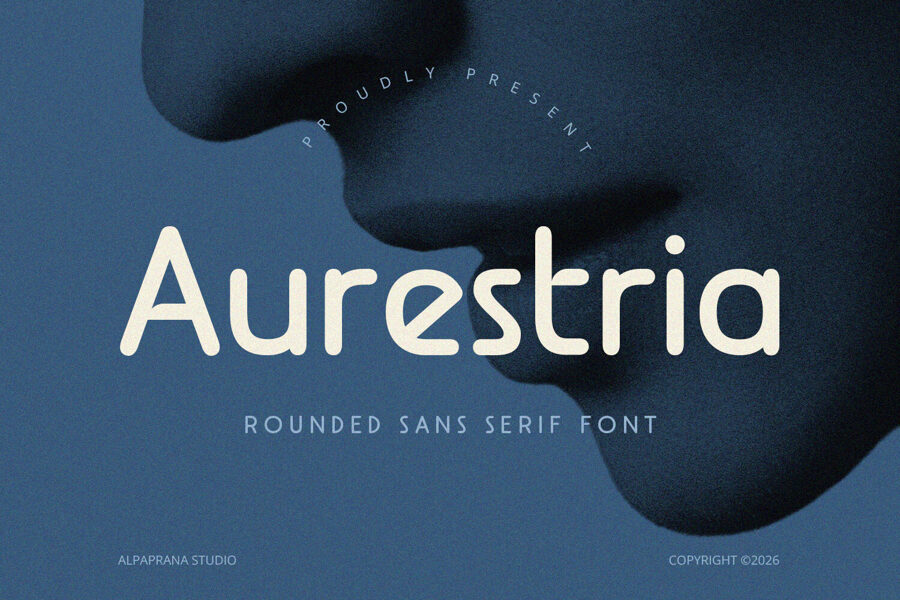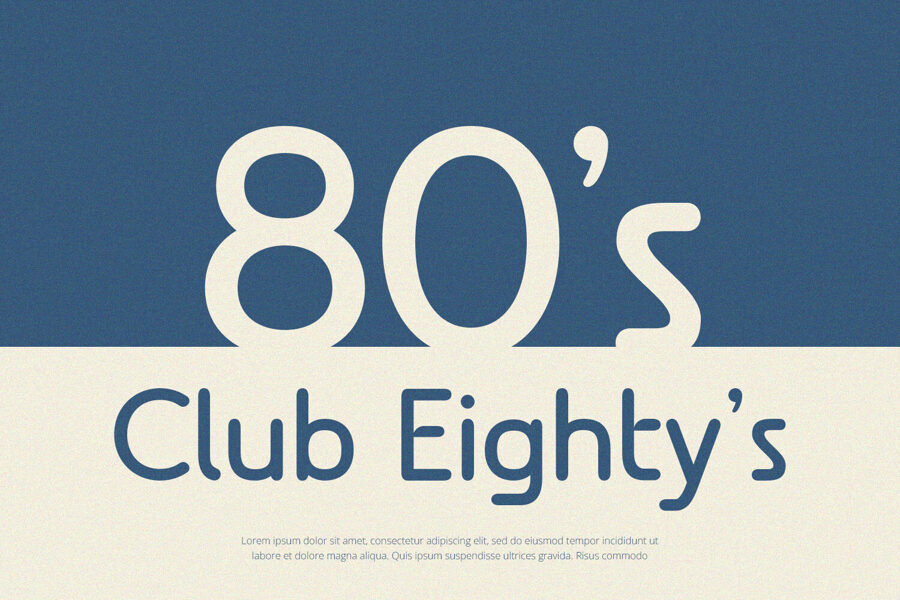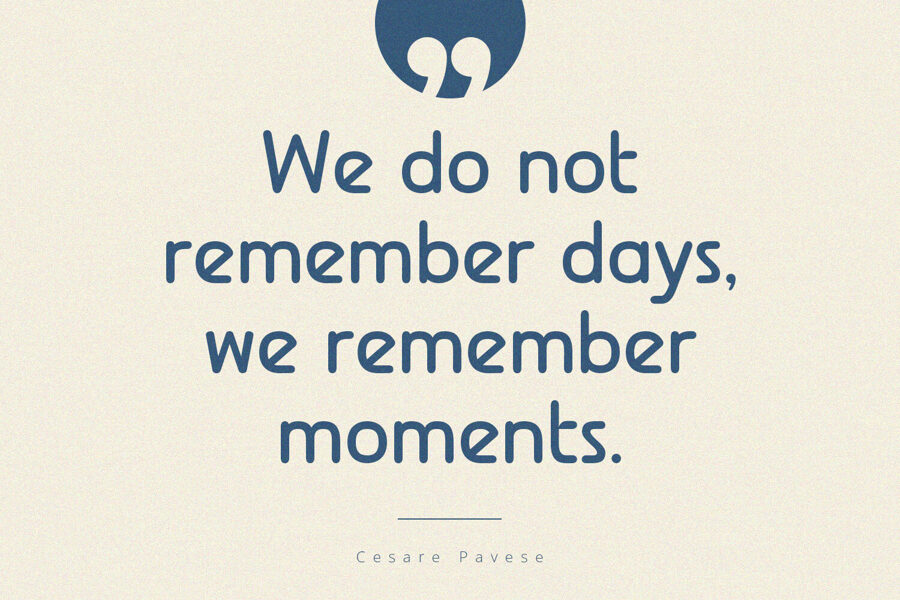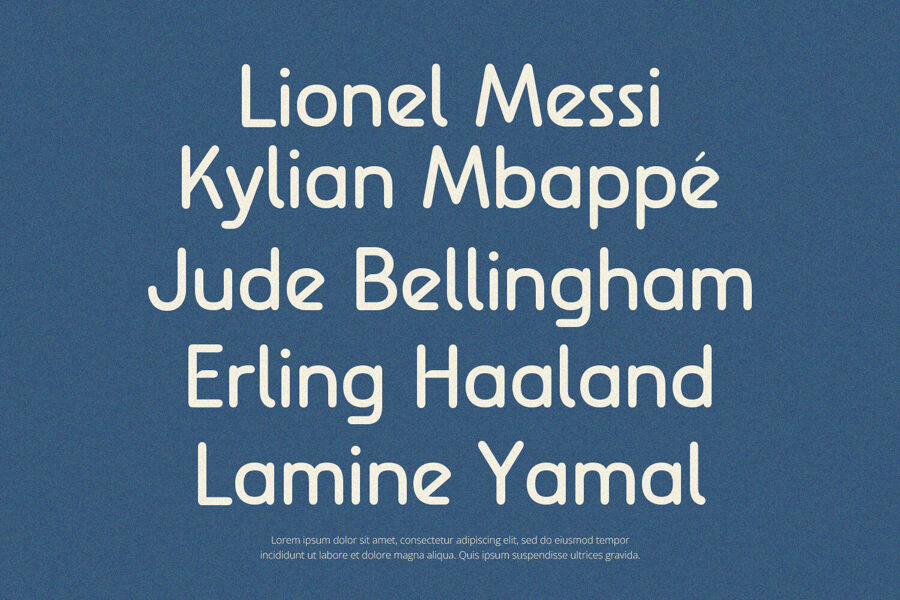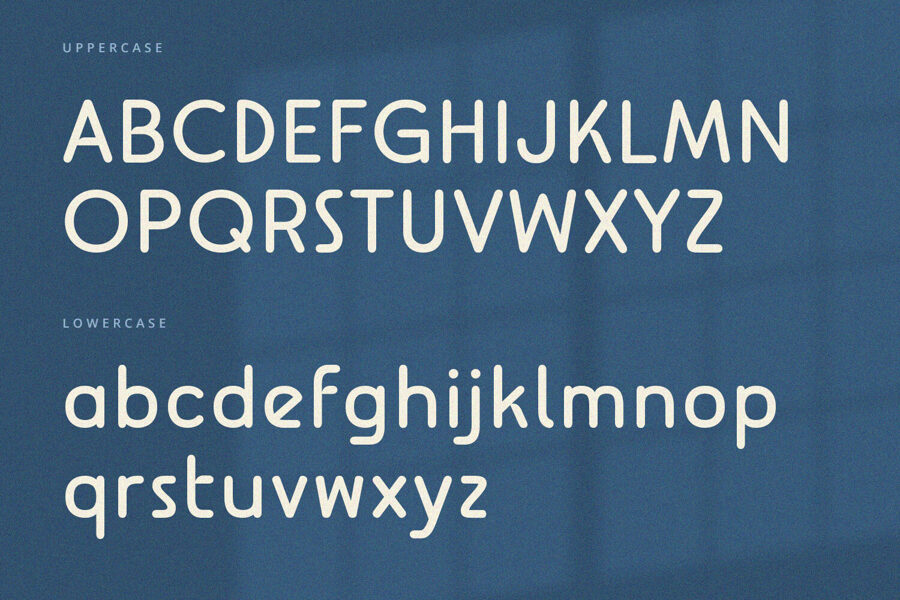
Aurestria is a modern rounded sans serif with soft curves, playful letterforms, and a clean, approachable personality. Its smooth strokes and distinctive shapes create a friendly yet stylish appearance, making it ideal for logos, branding, headlines, packaging, social media graphics, and creative projects that need a contemporary, memorable touch.